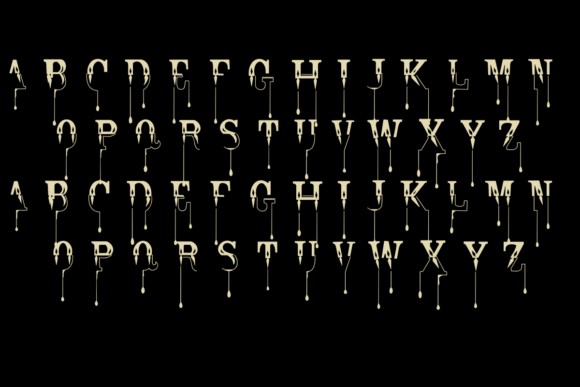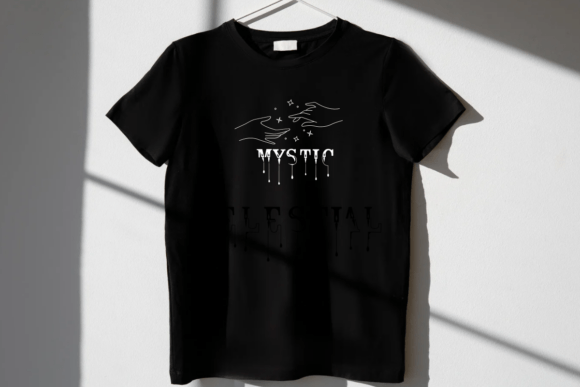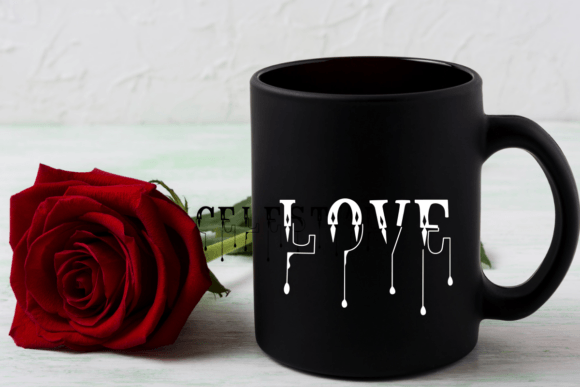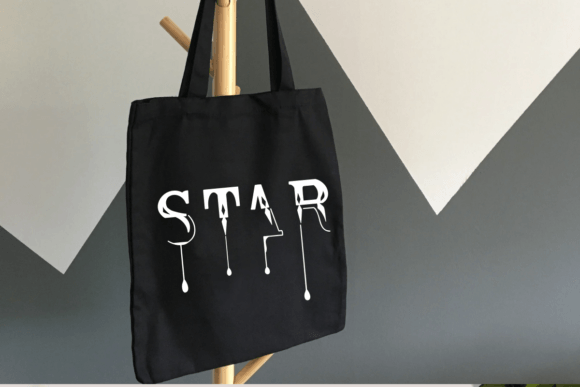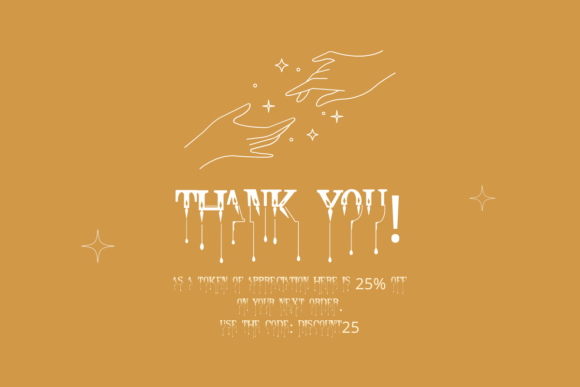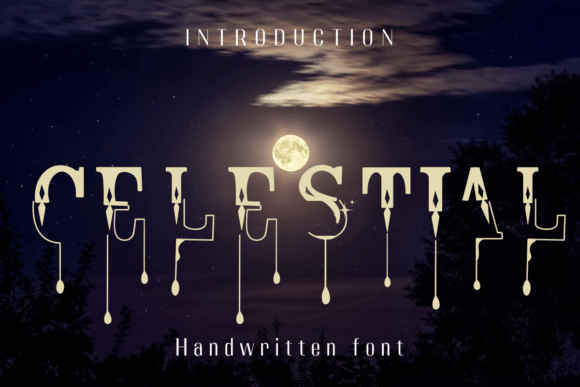
Celestial Font: Add a Touch of Whimsy to Your Designs
Are you looking for a font that can add a dash of creativity and playfulness to your designs? Look no further than Celestial, a unique decorative font that features letters with a dripping, pendulum-like design. In this article, we’ll take a closer look at Celestial and explore how you can use it to elevate your designs.
What is Celestial Font?
Celestial is a one-of-a-kind decorative font that boasts a distinctive, hand-crafted look. The letters in this font feature a dripping, pendulum-like design that gives them a playful and artistic feel. The font’s unique design makes it perfect for eye-catching titles, artistic projects, and any design that needs a touch of whimsy.
Key Features of Celestial Font
• Unique Dripping Design: The letters in Celestial feature a distinctive dripping design that gives them a creative and artistic look.
• Playful and Whimsical: The font’s playful and whimsical design makes it perfect for designs that need a touch of personality.
• Hand-Crafted Look: Celestial has a hand-crafted look that gives it a unique and artistic feel.
• Perfect for Artistic Projects: The font’s creative design makes it perfect for artistic projects, such as illustrations, paintings, and collages.
How to Use Celestial Font in Your Designs
Celestial is a versatile font that can be used in a variety of design projects. Here are a few ideas to get you started:
• Eye-Catching Titles: Use Celestial to create eye-catching titles for your blog posts, articles, and social media graphics.
• Artistic Projects: Add a touch of whimsy to your artistic projects, such as illustrations, paintings, and collages.
• Branding and Packaging: Use Celestial to create unique and memorable branding and packaging designs.
• Wedding and Party Decor: Add a touch of elegance and whimsy to your wedding and party decor with Celestial.
Tips for Working with Celestial Font
Here are a few tips to keep in mind when working with Celestial:
• Use it Sparingly: Celestial is a bold and eye-catching font, so use it sparingly to avoid overwhelming your design.
• Pair it with a Simple Font: Pair Celestial with a simple font to create contrast and add visual interest to your design.
• Experiment with Colors: Celestial looks great in a variety of colors, so experiment with different colors to find the one that works best for your design.
Celestial is a unique and creative font that can add a touch of whimsy and playfulness to your designs. With its distinctive dripping design and hand-crafted look, Celestial is perfect for eye-catching titles, artistic projects, and any design that needs a touch of personality. Whether you’re a designer, crafter, or DIY enthusiast, Celestial is a great addition to your font collection.